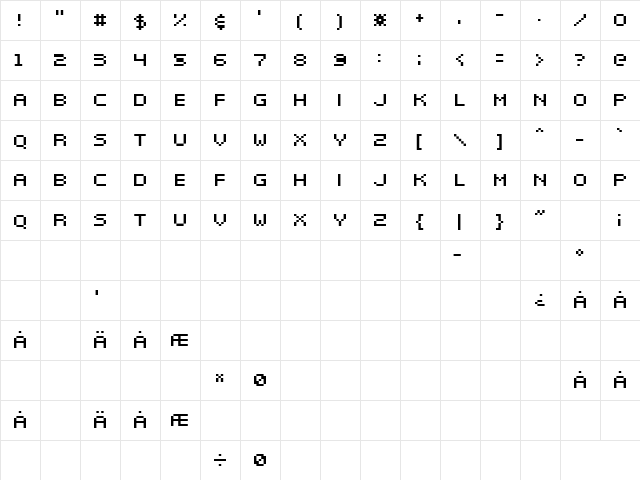
elektr_02_5 Regular
Design Context for elektr_02_5 Typeface
elektr_02_5 takes a measured approach to typography — its balanced proportions and neutral character make it a reliable workhorse for both digital and print work.